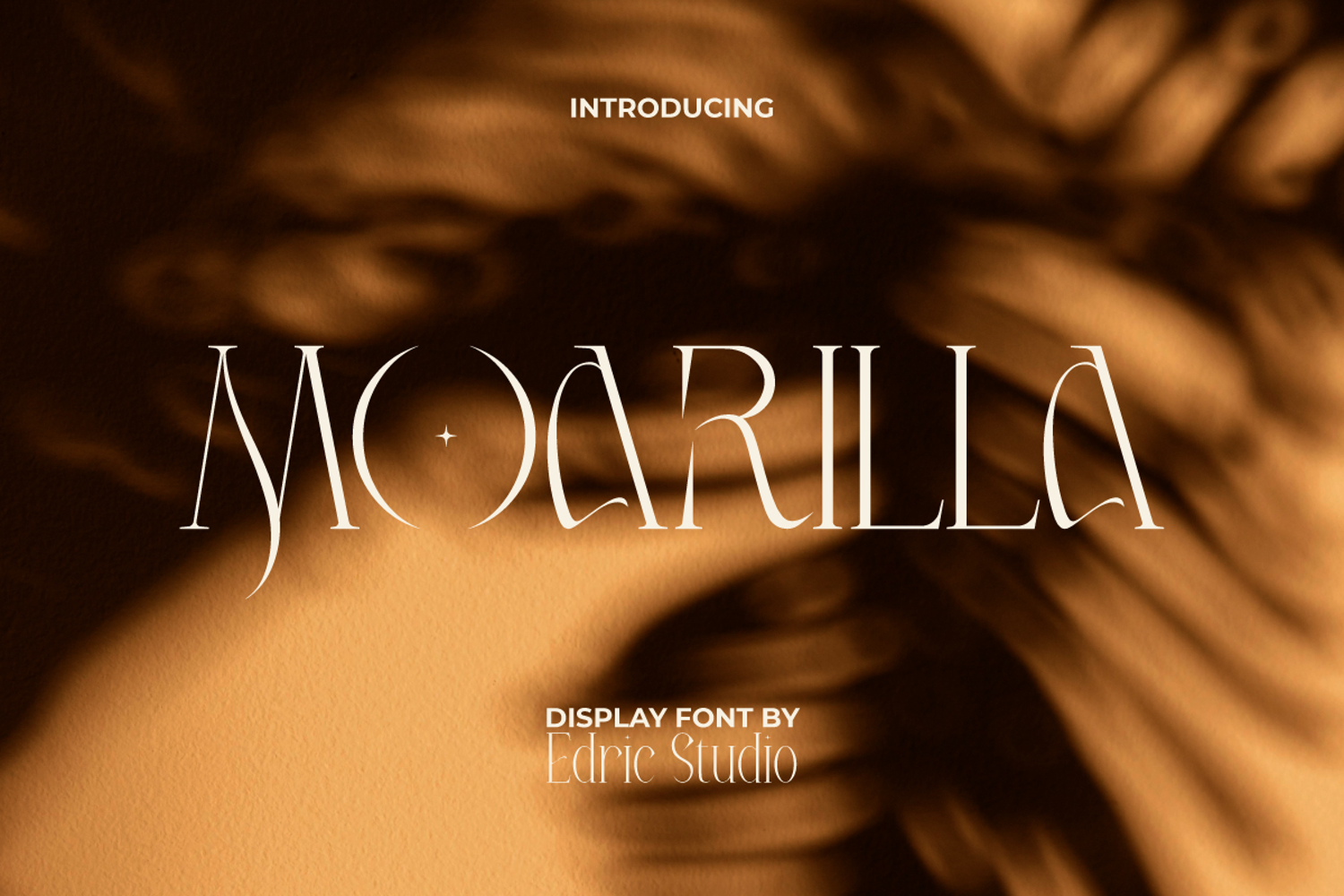
Moarilla
Moarilla Display Font is a classy display font that has a distinctive and stylish curve. In a more feminine and unique shape, it will be ready to add value to your brand. Very suitable for use in beauty clinic, cosmetic, florist, home furniture, interior designers, printing, publishing, real estate, skincare, spa salon, and much more.
Moarilla Display Font comes with a full set of Uppercase and Lowercase letters, Number, Punctuation, and Symbol. Makes it a perfect choice for banner, brochure, cover designs, headers, invitations, labels, logos, mockup, quotes, screen printing, signage, tags, template, title, watermark, websites, etc.
Moarilla Font a playful typeface with unique decoration in each character. Combine different characters for a bespoke, handcrafted feel. It’s tested to work well in the Adobe Apps (Illustrator, Adobe InDesign, Adobe Photoshop) even work on Microsoft Word. All of these characters are available through the glyph panel, moreover each letter has its own unicode (PUA) so you can access all the characters easily.